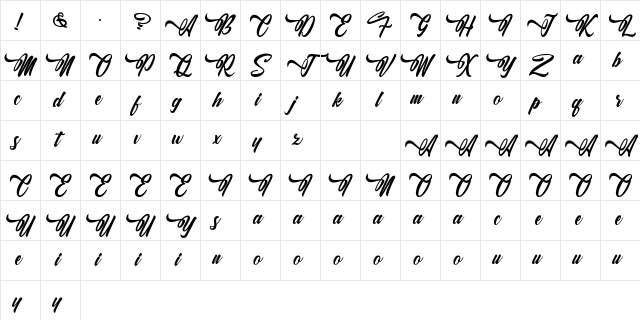
Alingkug Wellany Regular Free Font
Alingkug Wellany Regular
Foundry: Kotak Kuning Studio
Design Context for Alingkug Wellany
Alingkug Wellany is a composed and adaptable typeface that performs quietly and consistently across a wide range of design contexts.